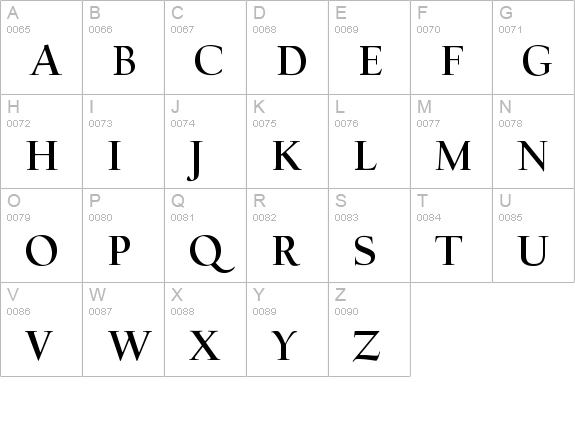
Village-BoldTitling is a captivating and bold font that exudes elegance and sophistication. Its strong and authoritative letterforms make a powerful statement, while maintaining a sense of refinement. Designed with meticulous attention to detail, this font is perfect for creating eye-catching headlines, titles, and logos that demand attention. With its generous spacing and clean lines, Village-BoldTitling ensures readability at any size. Whether used for print or digital projects, this font shines in both professional and creative contexts. Its versatility makes it suitable for a wide range of design applications, from magazine layouts to branding materials. What sets Village-BoldTitling apart is not just its striking aesthetic, but also its accessibility. It is freely available to download at FontsMarket.com, allowing designers, creatives, and enthusiasts alike to harness its power without any financial barriers. This font empowers individuals to unleash their creativity, experiment with different typographic styles, and bring their visions to life. The Village-BoldTitling font is a testament to the beauty of free resources, enabling designers to create impactful and memorable designs without compromising on quality. Embrace this font and let it elevate your design projects to new heights.